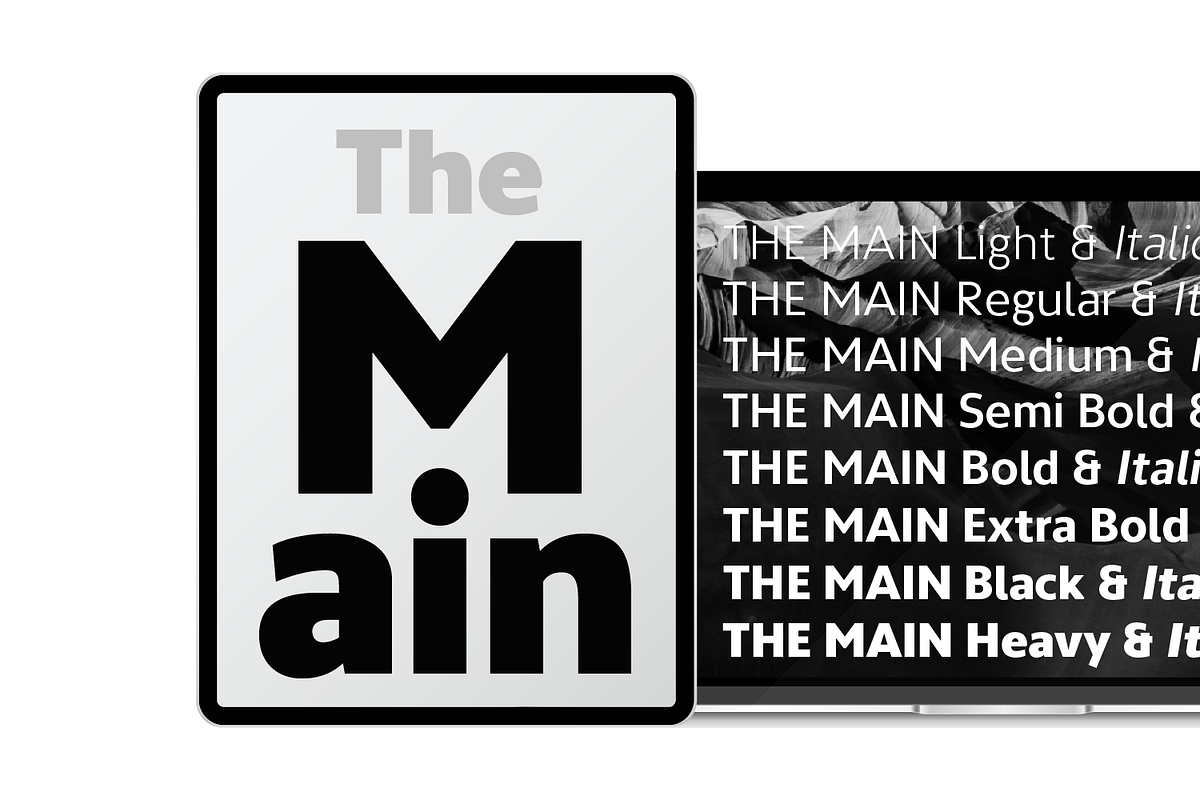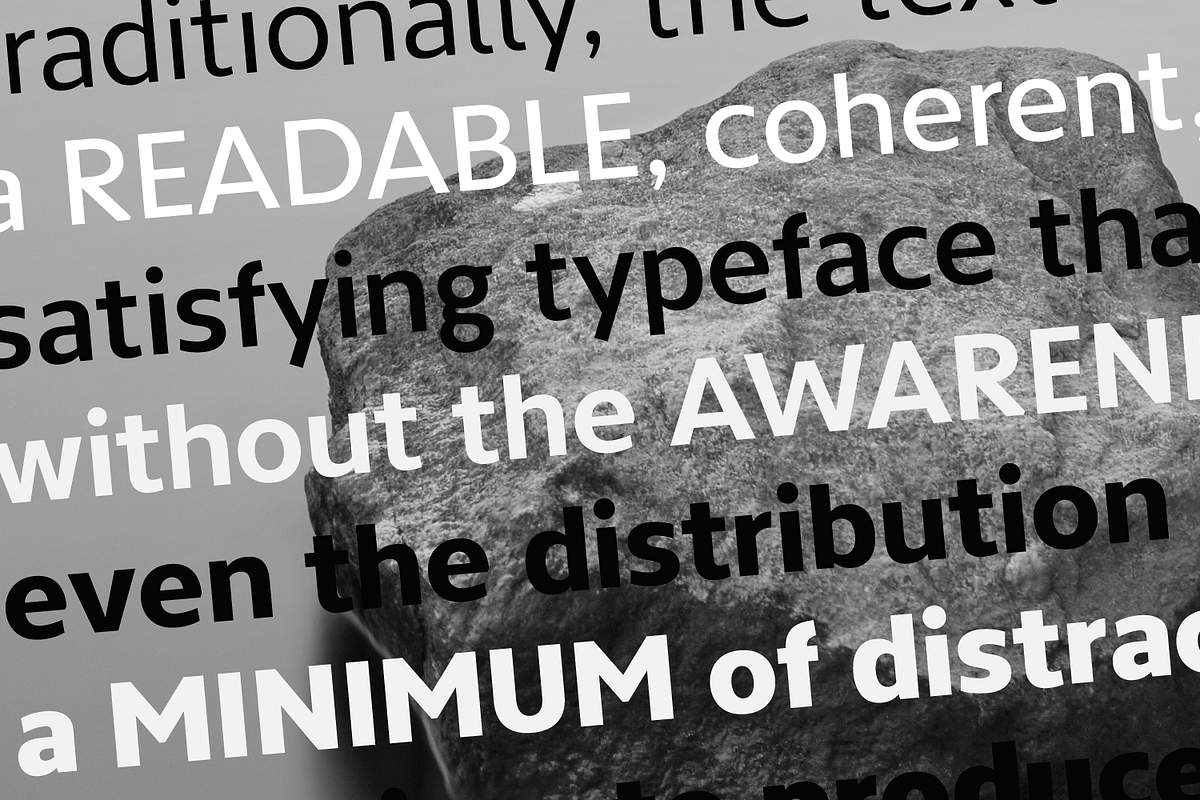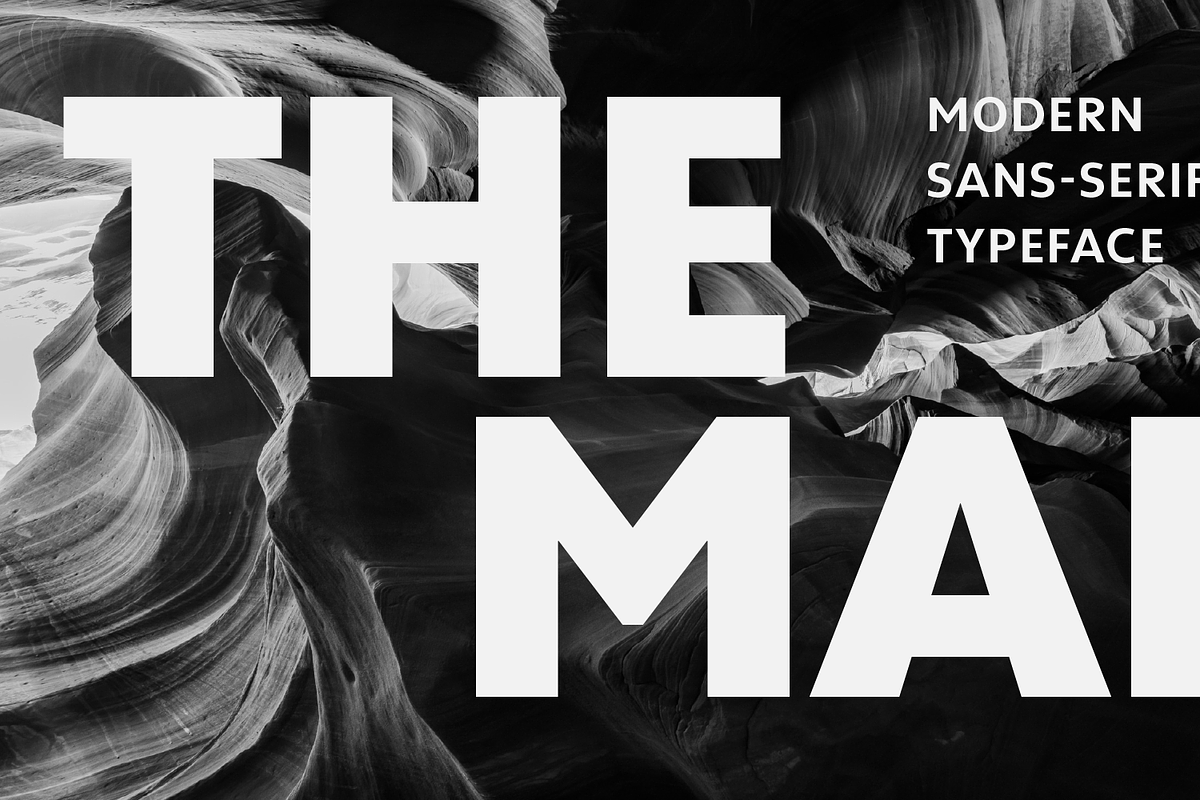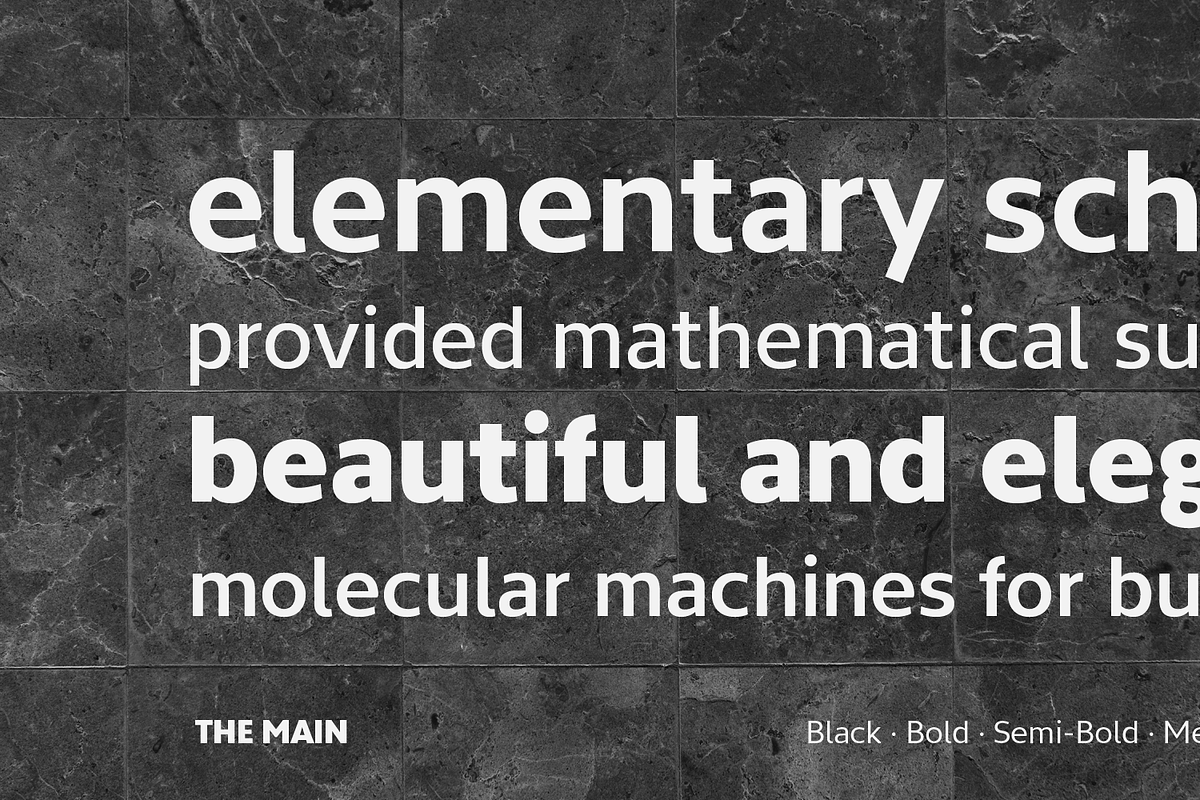
The Main - Modern Sans-Serif
The Main: A modern Sans-Serif font for advertising and branding. It comes in 16 weights, 8 uprights, and matching italics. Clean, versatile, and functional. Ideal for body text, headlines, and more. Offers alternates, ligatures, and multilingual support. Your go-to workhorse for all design needs.
The Main combines classic elegance with contemporary functionality. Its clean lines make it perfect for branding and editorial work, while its geometric and grotesque elements add a touch of modernity. This font is equally at home in corporate documents, magazine layouts, and web content. Its legibility ensures clarity in all contexts, and its alternates and ligatures allow for creative customization. Whether you're navigating web design, creating a logo, or developing a magazine layout, The Main's versatility, functionality, and sleek design make it the go-to choice for your typography needs.